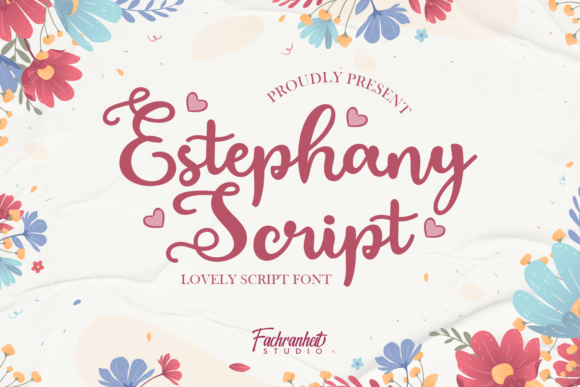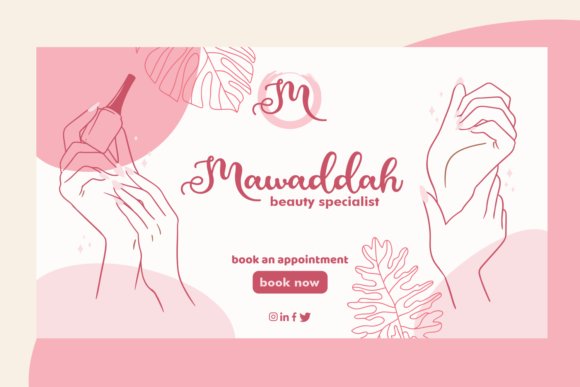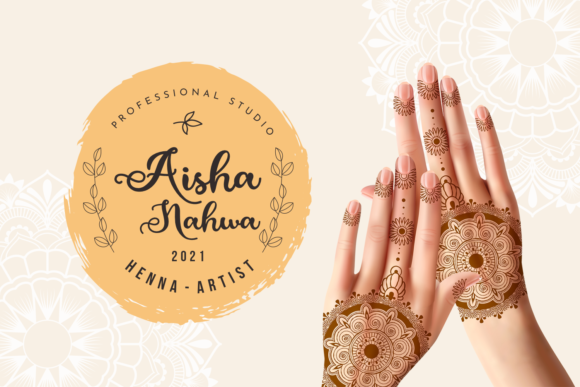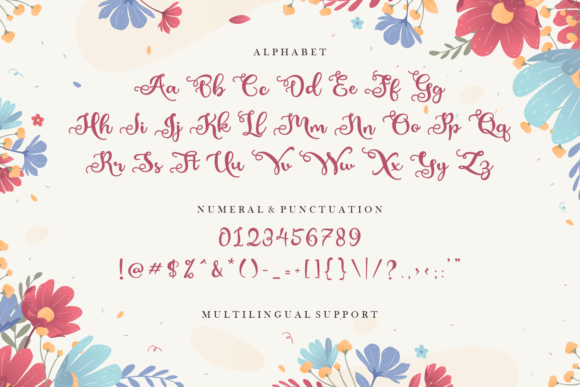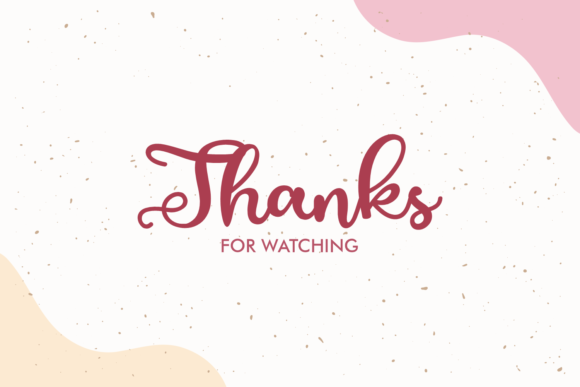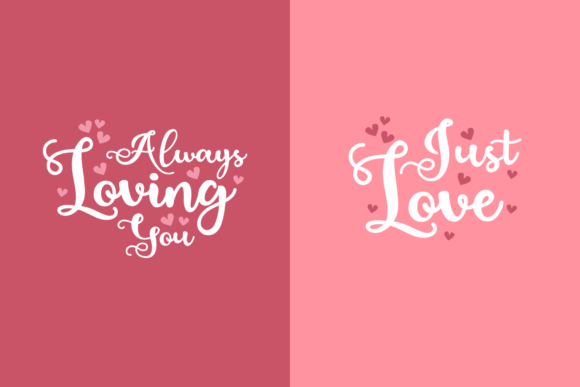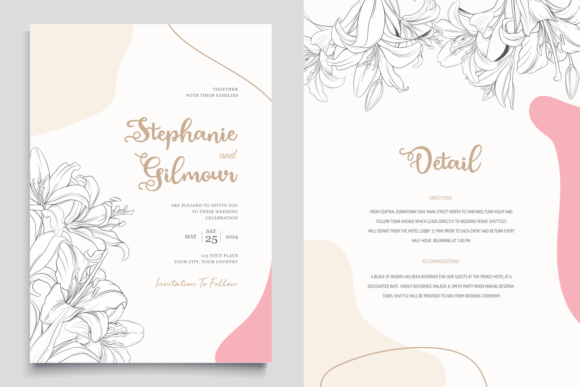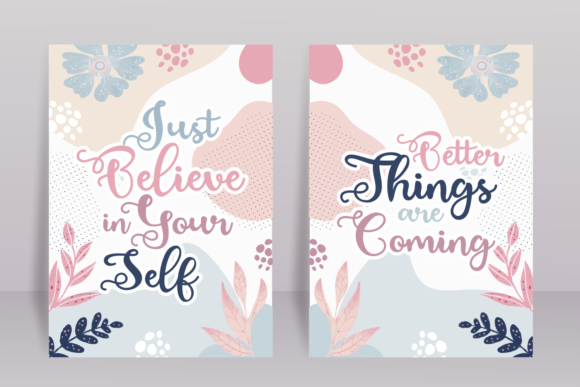
Estephany Script Font
About Estephany Script Font
Estephany Script is a dazzling script font. This font is neatly crafted and highly detailed. Whatever the topic, Estephany Script will be a wonderful asset to your font library, as it has the potential to enhance any creation.